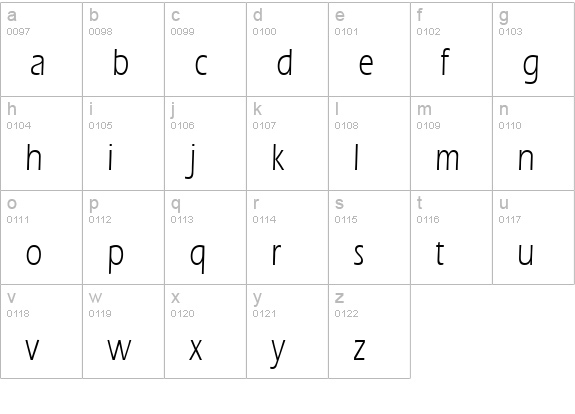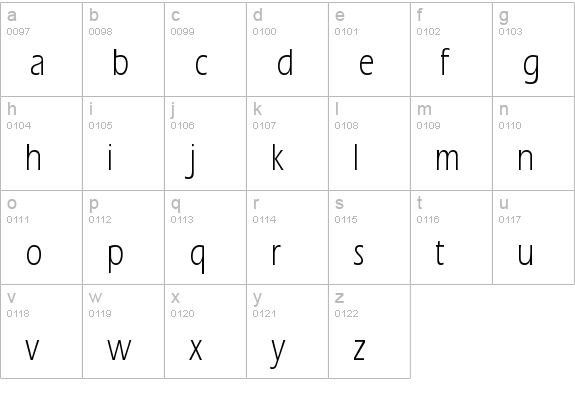
Eric Thin Normal is a delicate, low-contrast variant in the Eric typeface family \xE2\x80\x94 well suited to fashion editorial, minimal branding, and high-contrast display.
Eric Thin Normal font is a sleek and elegant typeface that exudes modernity and sophistication. With its clean lines and minimalist design, this font is perfect for creating a contemporary and stylish look in your projects. The thin weight of the font adds a sense of delicacy and refinement, making it ideal for use in a variety of design applications. Best of all, Eric Thin Normal font is completely free to download at FontsMarket.com. Whether you're working on a professional project or simply looking to add a touch of class to your personal designs, this font is a versatile and stylish choice. Don't miss out on the opportunity to enhance your typography with this beautiful and free font. Download Eric Thin Normal font today and elevate your designs to the next level!